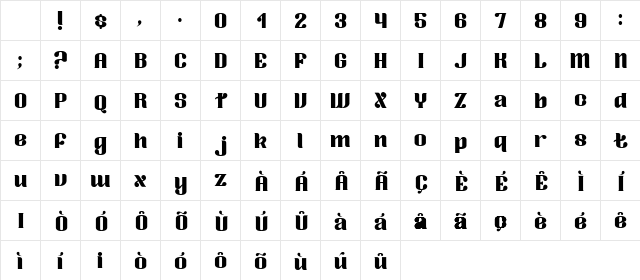
Complete Zoika font Bold glyph index. Displaying only characters natively supported by Zoika font Bold font.
Zoika font is a composed and adaptable typeface that performs quietly and consistently across a wide range of design contexts. Its bold stroke weight gives it real presence on the page.